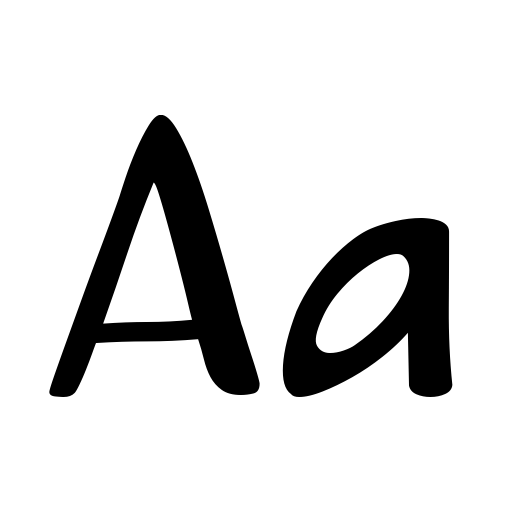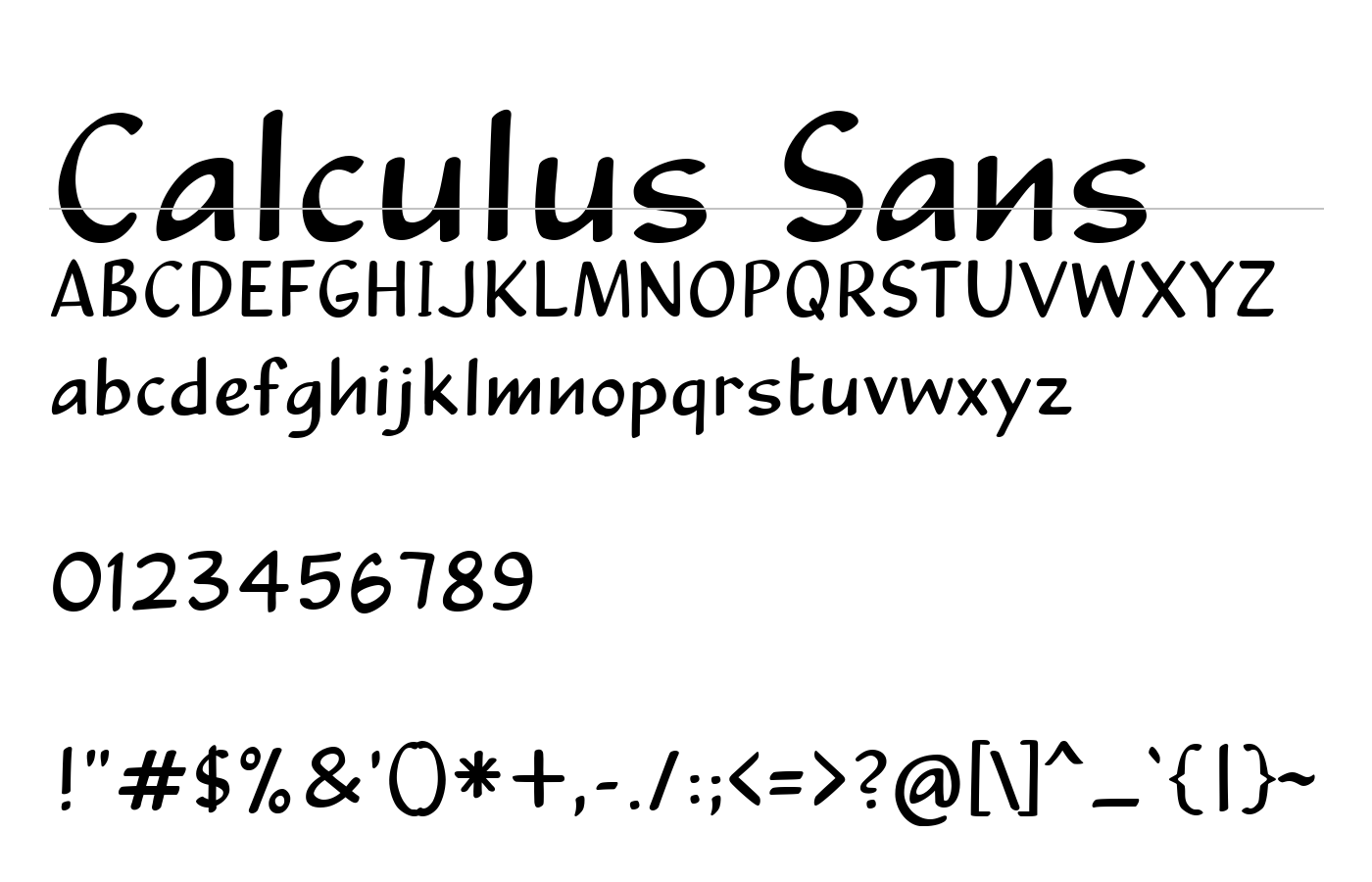
Calculus Sans is a playful and casual sans serif font with a hand-drawn feel, featuring slightly irregular strokes and moderate contrast that add warmth and personality. Its upright, informal letterforms with gentle curves and open counters make it approachable and easy to read, ideal for friendly branding, education materials, and creative projects that seek a relaxed, human touch. This font works well in headlines and body text where a lively, inviting tone is needed without sacrificing clarity.
Calculus Sans Font